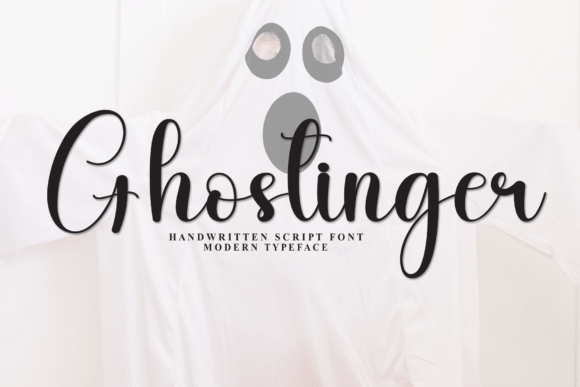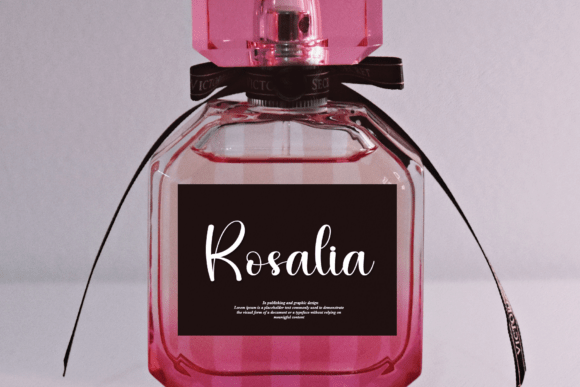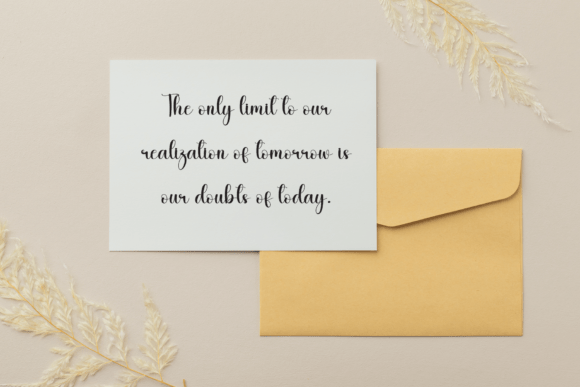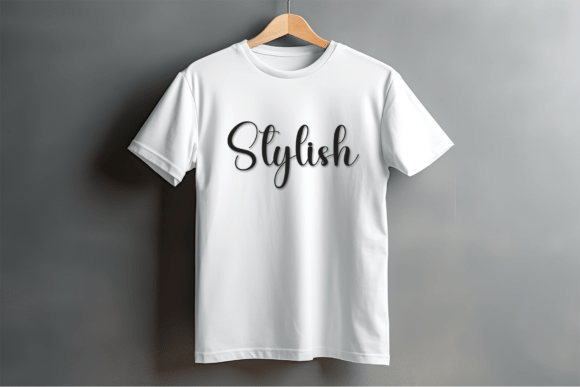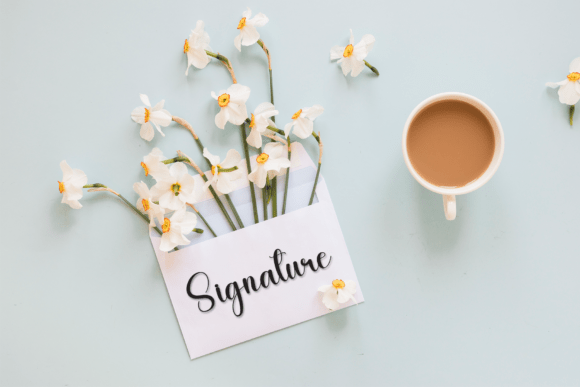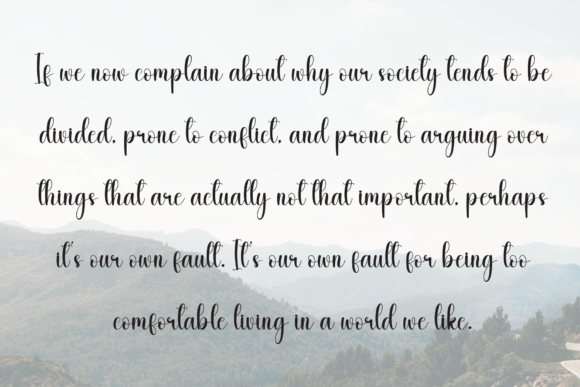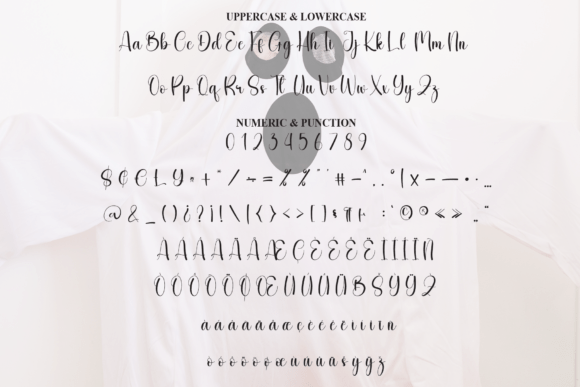
The Perfect Blend of Elegance and Modernity: Unveiling the Ghostinger Font
As designers, we’ve all experienced that moment of pure creativity when a font comes along and elevates our entire design to the next level. It’s the spark that sets off a chain reaction of inspiration, and we find ourselves lost in a world of possibilities. For us, that font is the Ghostinger Font – a stylish script font that embodies the perfect blend of elegance and modernity.
With its fluid curves, carefully crafted letterforms, and natural flow, the Ghostinger Font is more than just a font – it’s a design tool that adds a refined and sophisticated touch to any project. Whether you’re creating a logo, invitation, or social media graphic, this font is sure to make your designs stand out. Its versatility and visual appeal make it a valuable addition to any designer’s toolkit.
Ghostinger Font Key Features
- Font Family: Ghostinger
- Font Size: 1,000 glyphs, covering a wide range of languages and characters
- Unique Characteristics: Ghostinger features a unique blend of modern and vintage elements, with intricate details and ornate flourishes, making it ideal for creative projects, branding, and packaging design
Ghostinger Font Review
Overall, I have mixed feelings about the Ghostinger Font. Here’s my honest take.
- Unique and Modern Design: The font’s quirky and futuristic design makes it perfect for creative and innovative projects.
- Highly Versatile: Ghostinger Font is suitable for a wide range of applications, from logos and branding to digital interfaces and publications.
- Easy to Read: Despite its unusual design, the font is surprisingly legible, making it a great choice for body text and headings.
- Limited Character Set: The font’s character set is somewhat limited, which may be a concern for projects that require a wide range of special characters.
- Not Suitable for Small Text: Due to its complex design, the font may not be the best choice for small text or titles, as it can be difficult to read.
- Not Ideal for Traditional Designs: Ghostinger Font’s modern and futuristic design may not be the best fit for traditional or conservative projects.
The Ghostinger Font is a great choice for innovative and creative projects, but it may not be the best fit for all designs. Its unique design and high versatility make it a great addition to any font collection, but its limitations should be considered before making a final decision.
Tips for Getting the Most Out of Ghostinger Font
Use the Ghostinger Font for creative projects that require a unique and spooky aesthetic.
Combine the Ghostinger Font with other fonts for a bold and eye-catching design.
Experiment with different font sizes and styles to create a dramatic effect.
The Ghostinger Font is perfect for:
Spooky-themed designs, such as Halloween invitations and decorations.
Horror movie posters and promotional materials.
Creepy and mysterious websites and social media graphics.
Alternatives to “Ghostinger Font” for Designers
Bebas Neue is a sans-serif font that is perfect for creating a modern and clean look. It is great for use in headlines, titles, and other prominent text elements. Bebas Neue is a more traditional and classic alternative to Ghostinger Font, with a more straightforward and less stylized design.
Comparison to Ghostinger Font: Bebas Neue is a more conservative and traditional font compared to Ghostinger Font, which is known for its stylized and modern design. Bebas Neue is a great choice when you want to create a more classic look and avoid the bold and stylized aesthetic of Ghostinger Font.
Montserrat is a sans-serif font that is designed to be highly legible and versatile. It is great for use in a wide range of applications, from headlines to body text. Montserrat is a more geometric and structured alternative to Ghostinger Font, with a focus on clean lines and a minimalist design.